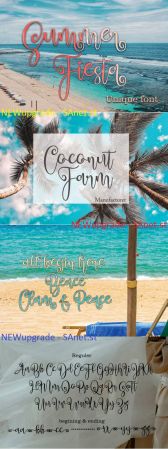
DesignOptimal - Summer Fiesta Font
Summer Fiesta is a fun, classic and playful script that’s perfect for adding a summery vibe to any design project!